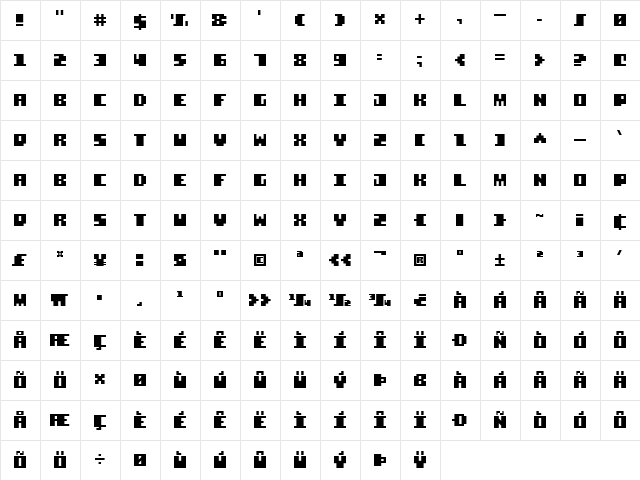
Square Stone-7 Regular
| Foundry | Style-7 |
| Designer | Sizenko Alexander |
Design Context for Square Stone-7 Typeface
Square Stone-7 takes a measured approach to typography — its balanced proportions and neutral character make it a reliable workhorse for both digital and print work.